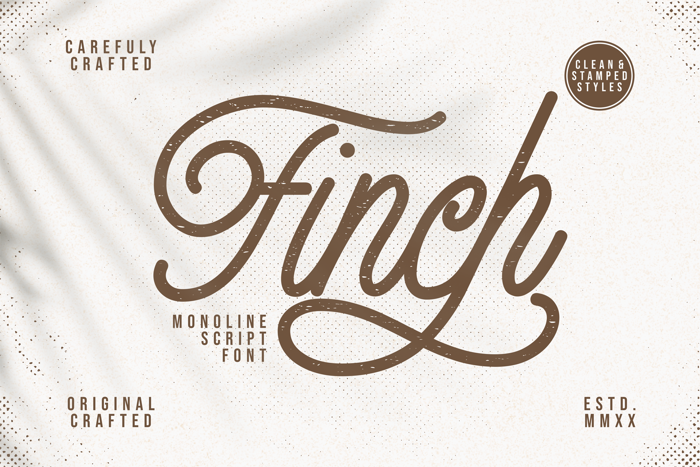
Finch Font
Olive! A handwritten script font. Olive font is perfect for branding, logotype, apparel, T-shirt, Hoodie, product packaging, quotes, flyer, poster, etc.
1. Uppercase and lowercase characters
2. Supports international languages
3. Numerals, punctuations, ligatures.
6. Multilingual support.